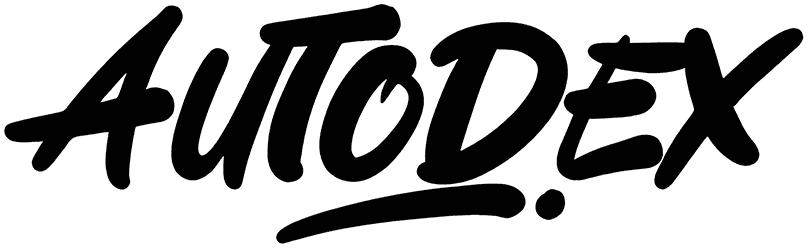
Black Raint Font
The Black Raint font will give your digital artwork a stylish, modern vibe while also coming across as warm and inviting. This attractive brush font is favored for usage in advertisements, flyers, fashion, and banners because of the striking appearance it generates with its connected characters. If you’re up for a challenge and want to impress your customer, try your hand at this script font.